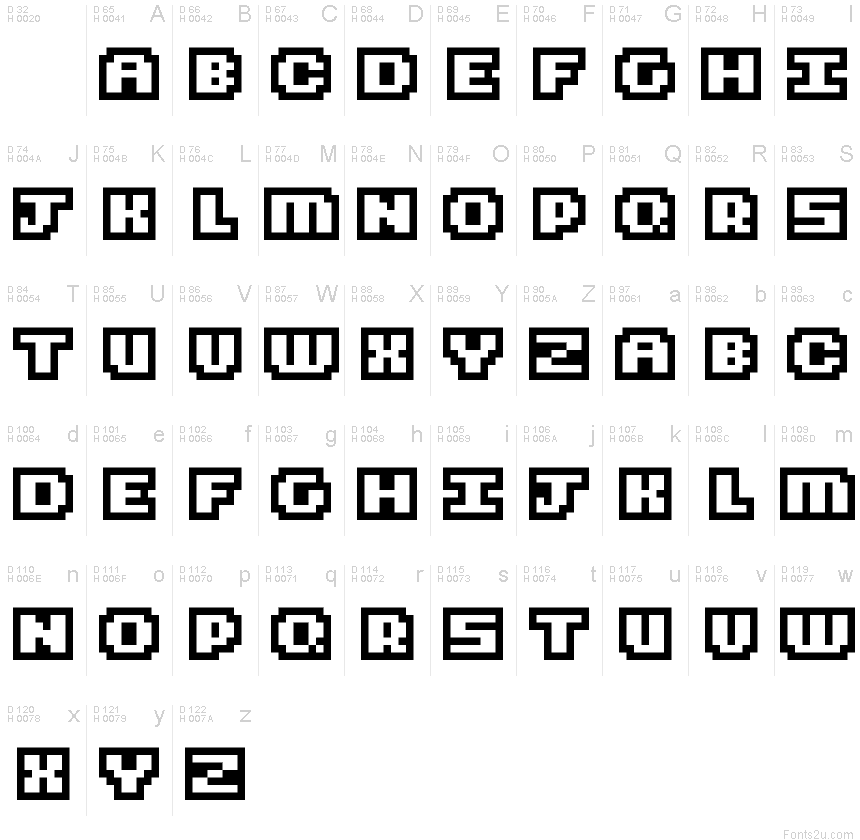
Small Hollows by Cal Henderson is a free pixel display font built from dense rectangular strokes, square interior gaps, and sharply stepped corners. Open blocks cut into the letters create a punched-out, maze-like structure, and the uneven widths keep the forms from feeling like a standard digital alphabet.
As an electronic display element, it can turn a game title or music poster into part of the interface. Its arcade edge also fits tech packaging and event graphics. Those uses share a taste for hard geometry, modular construction, and early screen culture.